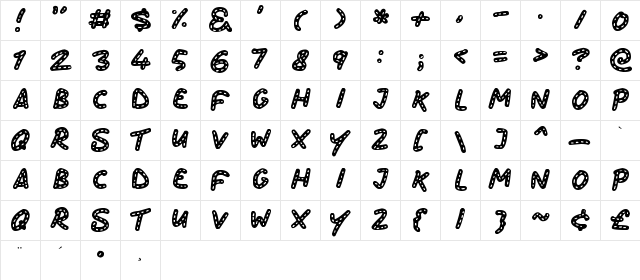
Stitchy Missy Regular Font Preview
Stitchy Missy Regular
Stitchy Missy Regular Font Details
Design Context for Stitchy Missy Typeface
Stitchy Missy is a composed and adaptable typeface that performs quietly and consistently across a wide range of design contexts.